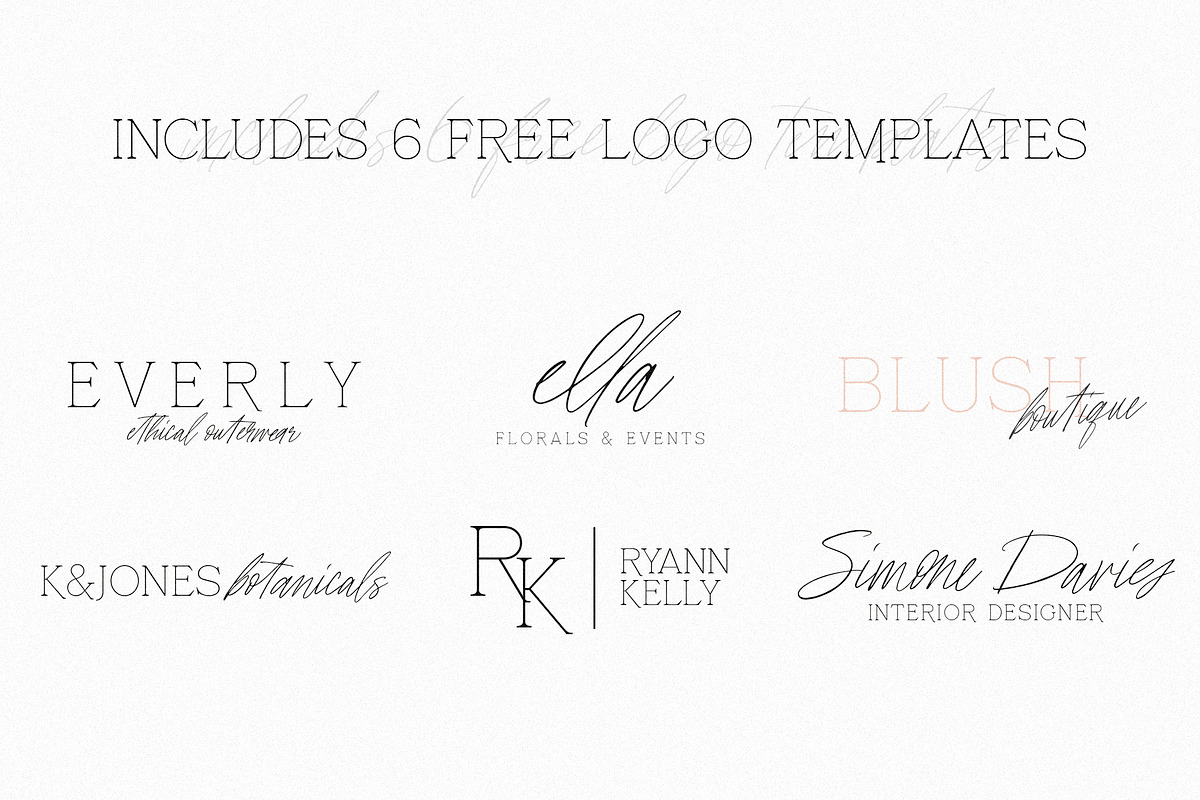
Kyoto Wedding Font Duo w/ Extras
UPDATE: Now includes 6 bonus logo templates for Photoshop and Illustrator!
Kyoto Wedding is a gorgeous serif and script font duo, perfectly paired for weddings and special events. The serif has a stunning fairytale quality that perfectly complements the messy script (which includes a massive 117 ligatures!).
This pair looks amazing on wedding invitations, signage, quotes, and even websites! Test it out in the sample box above to see how your company name, wedding date, or favorite quote will look using Kyoto Wedding!
It also includes 6 free logo templates to make your next branding project a total breeze (for use in Adobe Photoshop and Illustrator)!
- 117 ligatures
- Non-English support